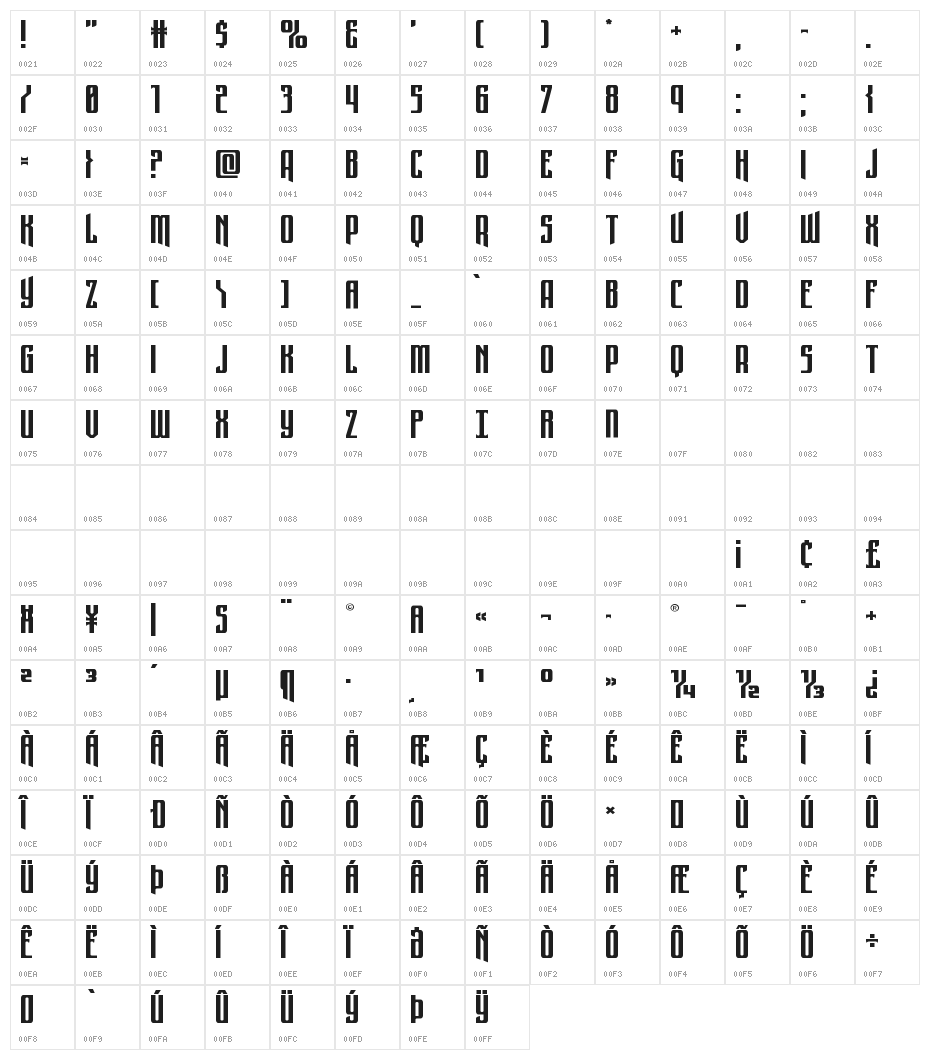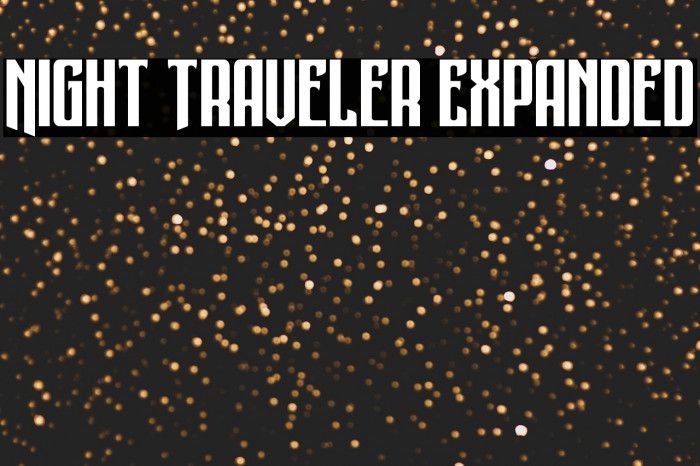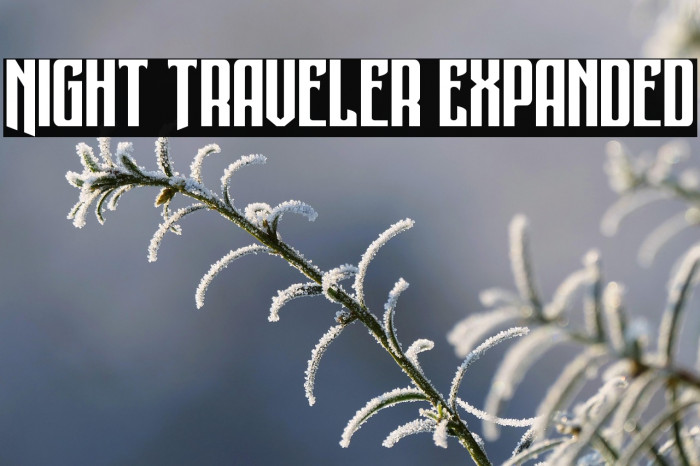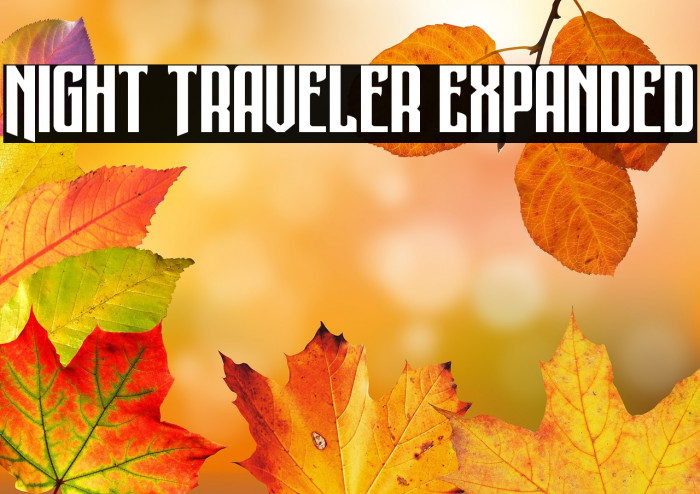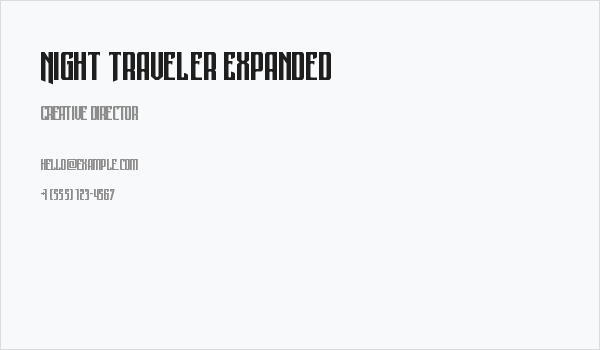
Night Traveler Expanded Font
Night Traveler Expanded Description
This font features a bold and striking design with a distinctly modern and geometric aesthetic. The characters are tall and narrow, with sharp angles and clean lines that create a sense of strength and stability. The uppercase letters are particularly prominent, with a uniform height that enhances readability. The numerals and special characters maintain the same bold style, ensuring consistency across all text elements. This font's unique style makes it suitable for projects that require a strong visual impact.